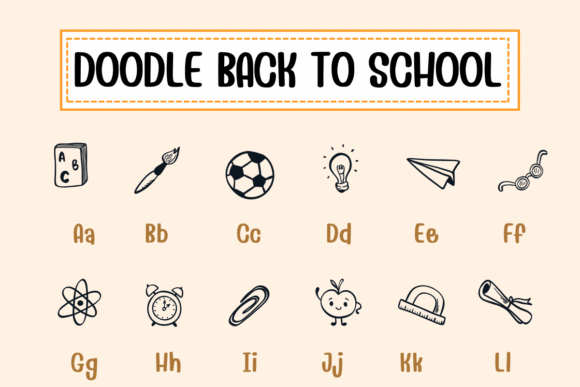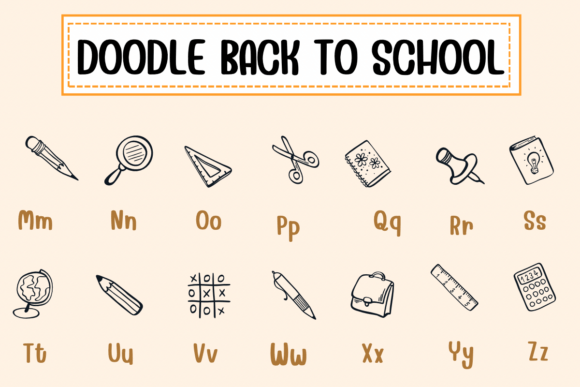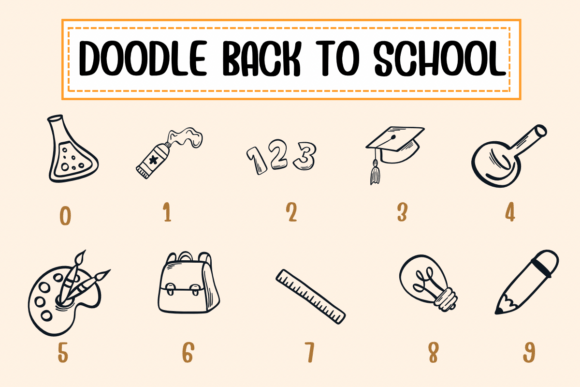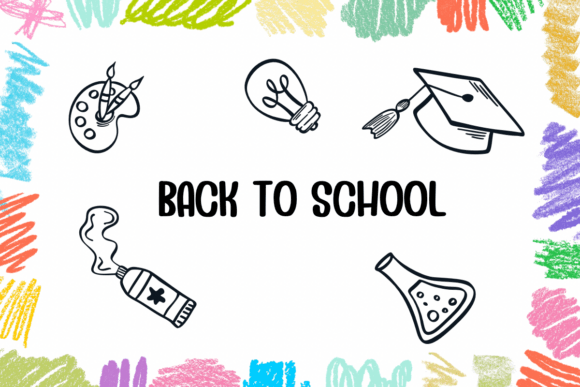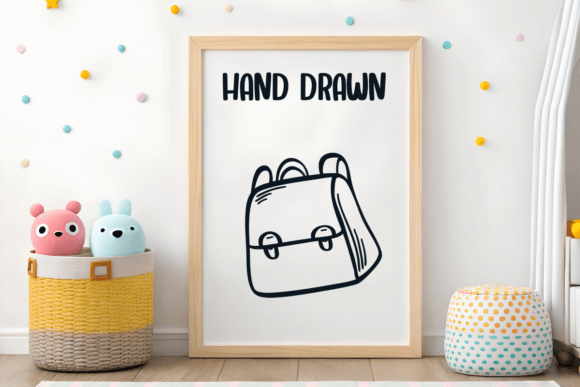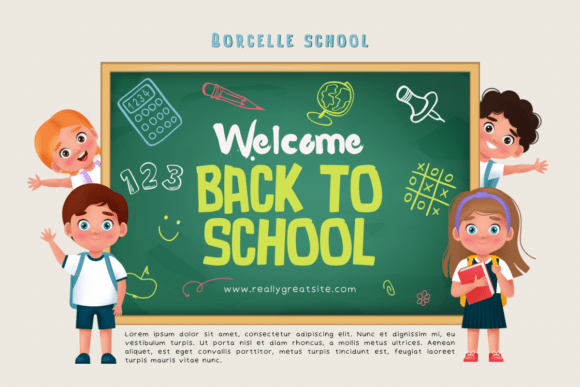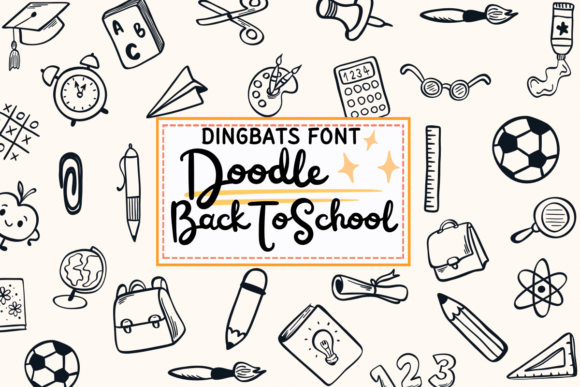
Doodle Back to School Font: Unleash Creativity in Education
As the new academic year approaches, teachers, designers, and crafters are on the lookout for innovative and engaging ways to create educational resources, classroom decor, and promotional materials. Introducing the Doodle Back to School font, a charming dingbats typeface that embodies the spirit of creativity and learning. This delightful font is packed with a vast collection of hand-drawn icons, perfectly suited for designing independent teacher resources, classroom organization labels, student planner stickers, and attention-grabbing social media headers.
A Font that Captures the “Scholarly-and-Sketchbook” Soul
The Doodle Back to School font boasts a unique, whimsical style that combines the charm of hand-drawn illustrations with the uniformity of a digital typeface. Its “scholarly-and-sketchbook” soul is reflected in the font’s eclectic mix of icons, which include rhythmic pencil strokes, playful globes, miniature backpacks, scientific calculators, and many more. Each icon is meticulously crafted with a consistent line weight, giving the font a distinctive and endearing personality.
With the Doodle Back to School font, the creative possibilities are endless. Teachers can use it to create engaging lesson plans, worksheets, and classroom decorations that will captivate their students’ imagination. Designers can leverage the font’s versatility to craft compelling social media headers, blog posts, and educational resources that stand out from the crowd. Crafters can also use the font to create beautiful student planner stickers, labels, and other paper crafts that add a personal touch to any project.
Key Features of Doodle Back to School Font
- Vast collection of hand-drawn icons: The font includes a wide range of icons, from everyday school objects to more abstract illustrations, ensuring that you’ll always find the perfect symbol to convey your message.
- Whimsical and uniform line weight: The font’s distinctive line weight gives it a charming, hand-drawn feel that’s both playful and professional.
- Creative versatility: Use the font for a variety of projects, from educational resources and classroom decor to social media headers and paper crafts.
- Youthful personality: The font’s youthful and energetic vibe makes it perfect for engaging young students and inspiring creativity in the classroom.
Perfect for Independent Teacher Resources
The Doodle Back to School font is an excellent choice for teachers who create their own educational resources. With its vast collection of icons and creative versatility, the font can help you design engaging lesson plans, worksheets, and classroom decorations that reflect your unique teaching style. Whether you’re a homeschooling parent or an educator in a traditional school setting, this font is sure to become an indispensable tool in your teaching toolkit.
Ideas for Using Doodle Back to School Font
- Create eye-catching classroom organization labels and bulletin board headers.
- Design engaging student planner stickers and inserts.
- Develop interactive worksheets and lesson plans with custom illustrations.
- Produce high-impact social media headers and promotional materials for educational events.
- Make personalized paper crafts, such as gift tags and greeting cards, for special occasions.
The Doodle Back to School font is a delightful and versatile typeface that’s sure to inspire creativity in educators, designers, and crafters. With its vast collection of hand-drawn icons, whimsical line weight, and youthful personality, this font is the perfect choice for creating engaging educational resources, classroom decor, and promotional materials. So why wait? Pack your bags for a creative adventure with Doodle Back to School, and discover a world of limitless possibilities in education!